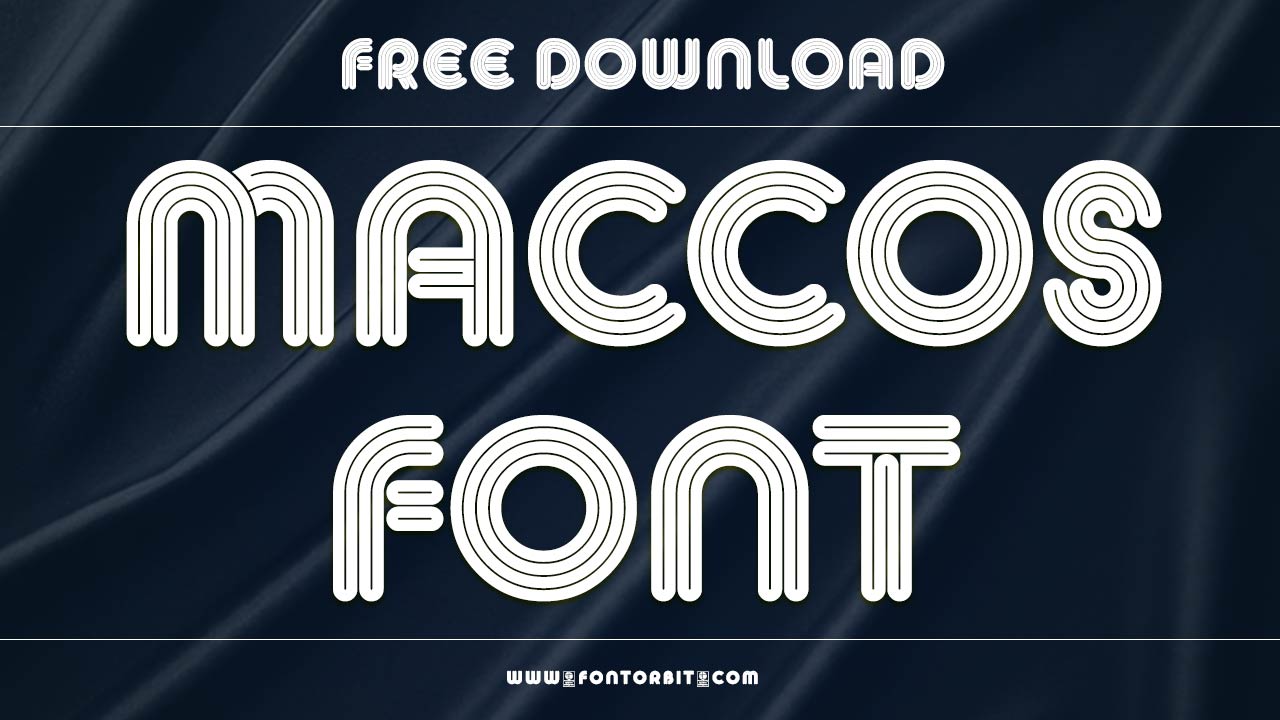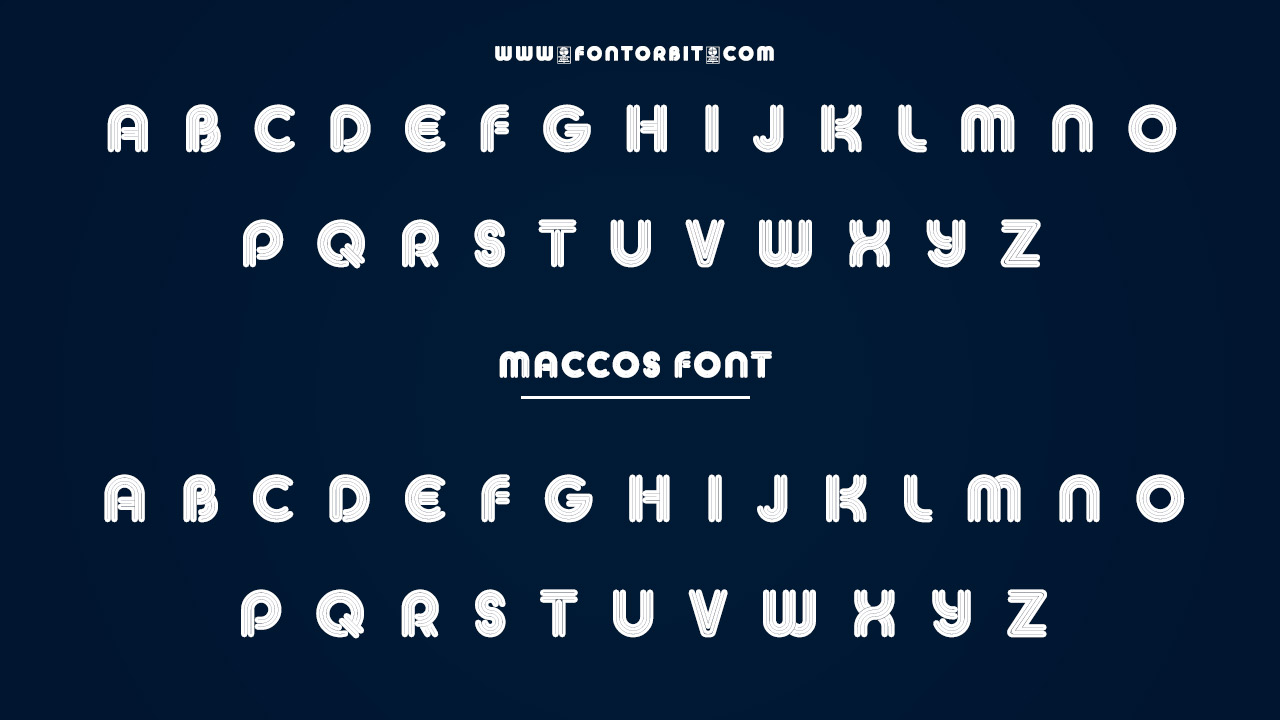
The Maccos Font is a decorative and groovy typeface designed by Studio Typo, known for its retro and playful aesthetics. This font family includes four distinct styles: Light, Regular, Bold, and Double, making it versatile for a variety of design applications. Whether you’re working on posters, branding, or digital graphics, the Maccos Font adds a funky and stylish touch to your projects.
Type Of The Maccos Font (Font Family)
- Maccos Regular
- Maccos Light
- Maccos Double
- Maccos Bold
Maccos Font: Using Occasions
The Maccos Font is perfect for creative projects that demand a touch of groovy charm. Common applications include:
- Logos: Great for branding projects that need a retro or funky aesthetic.
- Posters: Ideal for creating eye-catching headlines for events, music concerts, or promotions.
- Typography Projects: Adds character to book covers, banners, and flyers.
- Websites: Perfect for enhancing entertainment or pop culture-themed sites.
- Printed Materials: Suitable for brochures, event signage, and invitations.
- Digital Graphics: Works seamlessly with design software for crafting stunning visuals.
Maccos Font Found In Use
The Maccos Font has become a favorite among designers for its groovy and decorative style. From branding to digital art, this font offers endless creative possibilities. It is frequently used for:
- Event posters
- Retro branding campaigns
- Nostalgic designs
- Funky social media graphics
1.What Is The Maccos Font, And What Makes It Unique?
The Maccos Font is a decorative and groovy typeface designed by Studio Typo. Known for its retro aesthetics and clean, bold letterforms, it is perfect for projects like logos, posters, and branding. The font family includes various styles such as Maccos Demo Bold Font and Maccos Double Demo, offering flexibility for creative designs. Its limited character demo version provides a sneak peek into its features, including uppercase and lowercase characters along with some special characters.
3.How Can The Maccos Font Be Used In Design Projects?
The Maccos Font is incredibly versatile and works well across various projects, including:
- Posters: Perfect for bold and eye-catching designs.
- Logos: Adds a funky and modern vibe to your brand identity.
- Flyers: Creates a standout look for event promotions.
- Websites: Enhances display elements for retro-themed websites.
5.What Are The Key Features Of The Maccos Font Family?
The Maccos Font family includes several styles such as Maccos Demo Bold Font and Maccos Double Demo. It supports both modern fonts and western fonts, making it suitable for various designs. The italic style and bold options allow for creative flexibility, while the inclusion of special characters ensures its usability for diverse projects. It’s perfect for those looking to create a new font experience in retro or gothic font-inspired works.